I use \usepackage[sfdefault,light,lining]{FiraSans} to reproduce the default font of the Beamer Metropolis theme. I followed this question for this.
However, the bold font looks too heavy. When I comment the \usepackage line, the font changes. The default font of Metropolis is different. I obtain these results with Overleaf and TeXstudio. It seems that I need to add another option to \usepackage or change the options there. How can I fix this?
MWE:
% Metropolis default font below? Bold font looks too heavy
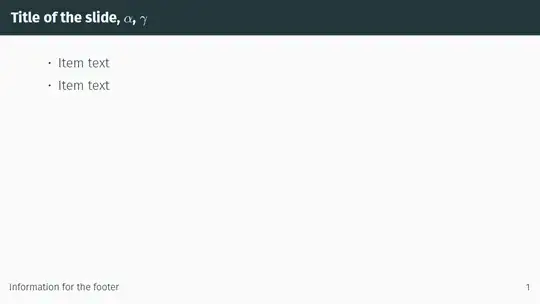
FiraSans-Medium.otfto the directory of the main tex file, but it does not change the error messages. – Andre Feb 24 '23 at 19:43xelatex. Can you try usinglualatex? I didn't have a problem with that. – Zxcvasdf Feb 27 '23 at 03:45lualatex. Thank you. The font, however, is bold-regular:BoldFont = FiraSans-Regular.otf(not medium). – Andre Feb 27 '23 at 04:31\usepackage[sfdefault,light,lining]{FiraSans}to have the section titles behave in the expected way, it will be appreciated – Andre Feb 27 '23 at 04:36mediumgets closer, but the default font for bold is regular. But it is close enough. Thanks! – Andre Feb 27 '23 at 16:19